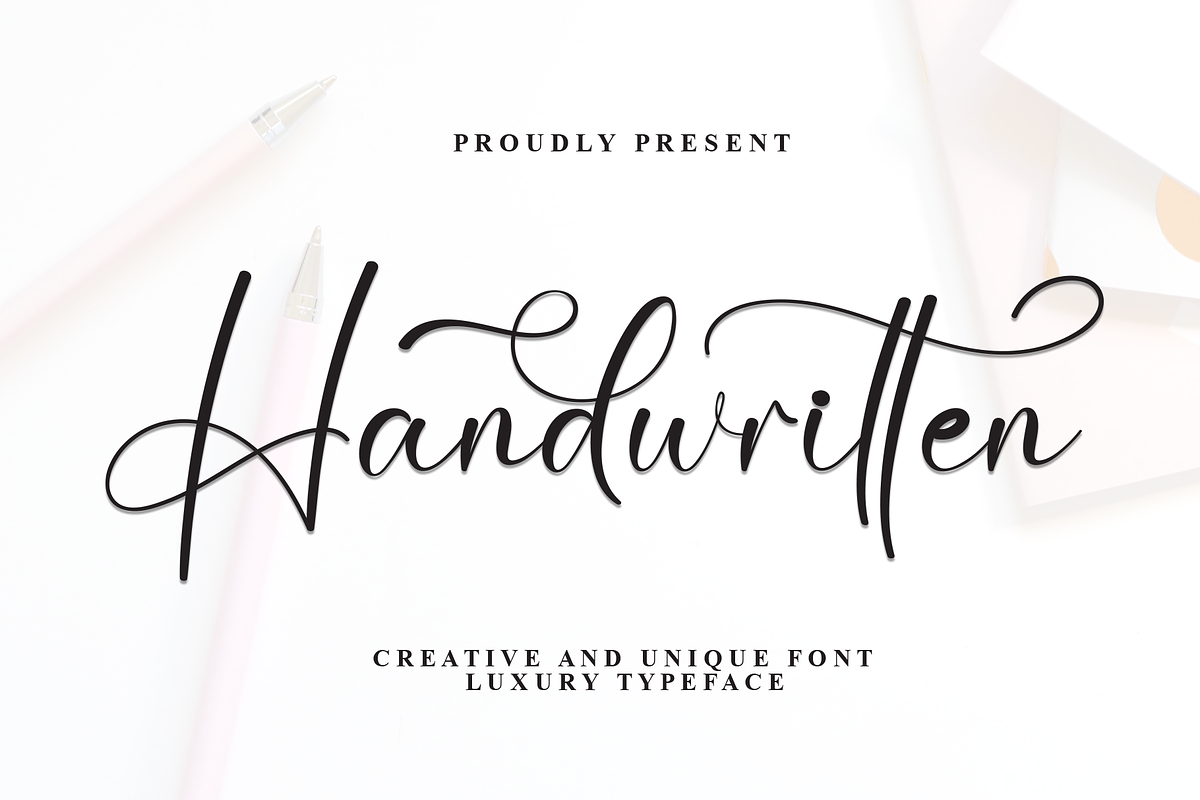
Handwritten | Script Font Free Download
Handwritten | Script Font Free Download is a beautifully crafted script typeface that mimics the natural flow of authentic handwriting. With its smooth curves, delicate strokes, and personal touch, this font is ideal for wedding invitations, branding, quote designs, greeting cards, and lifestyle content. It brings a warm, human feel to your projects—perfect for creating emotional and elegant visual statements.
Designers love Handwritten | Script Font Free Download for its versatility and charm. Whether you're designing for a modern boutique, a heartfelt message, or a creative blog, this font adds personality and a sense of connection through its graceful lettering.